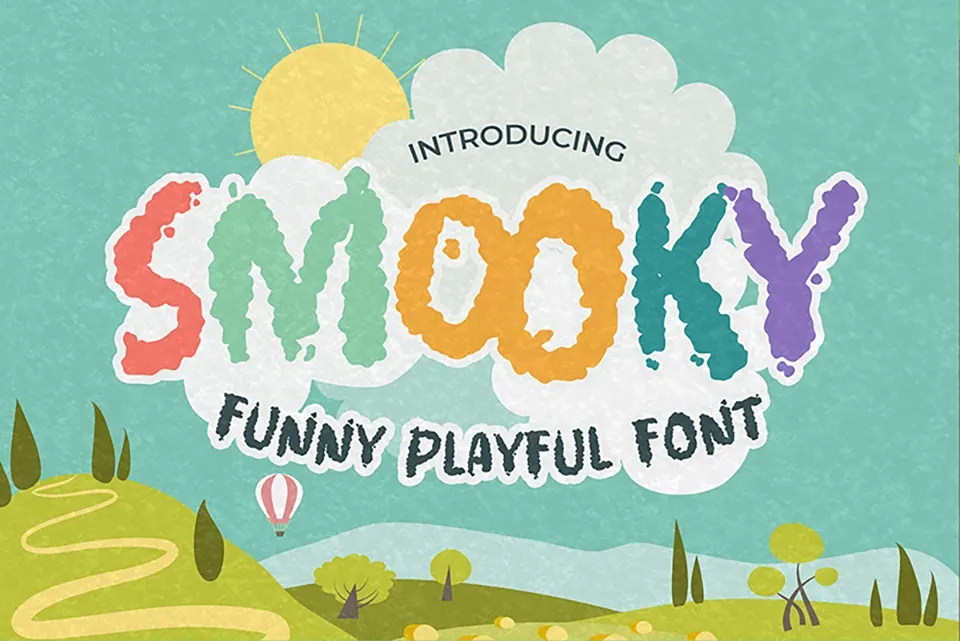
Smooky Font
Smooky – Funny Playful Font ,unique and fun for children is a natural that is written casually and quickly.
Letters are made with Procreate. Then trace down into vector format, and carefully crafted into a typeface.
That is why Smooky has a authentic , and unique characteristic more natural look.
Smooky Perfect for designs, branding projects, Logo design,Quotes product packaging and another Project that require cute display font.